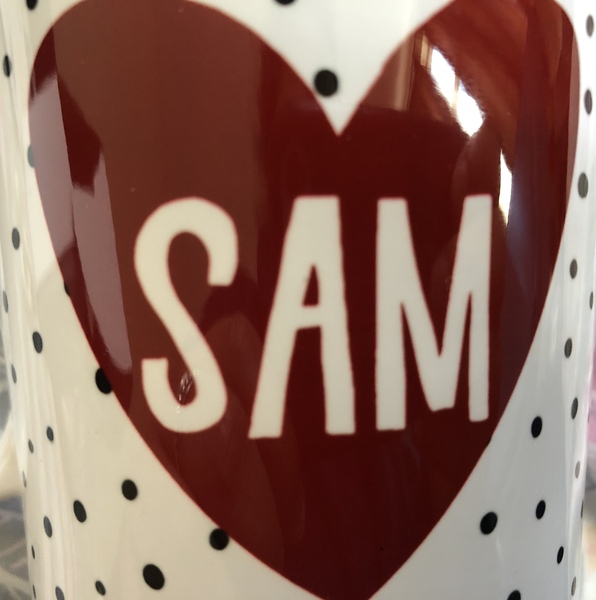
Dodgy font.
Do you guys see anything off about this font?
Looks like the S is upside down
The S looks like it's upside down.
Yes agree the s could be upside down but honestly it just looks quite an informal irregular font and I think it looks fine, like it’s supposed to be like that
The S is a bit top heavy, but I don’t think it matters. My capital Ss always go like that when I try to draw big letters.
I think the S just adds to the “hand drawn” nature of the design.
I contacted seller and: “I can confirm the 's' isn't upside down and this is the nature of the font. It's meant to look slightly hand drawn and not entirely uniform.”
It’s fine to give as a gift op! I honestly thought it was meant to be like that, it’s informal and relaxed and as she says “hand written” style